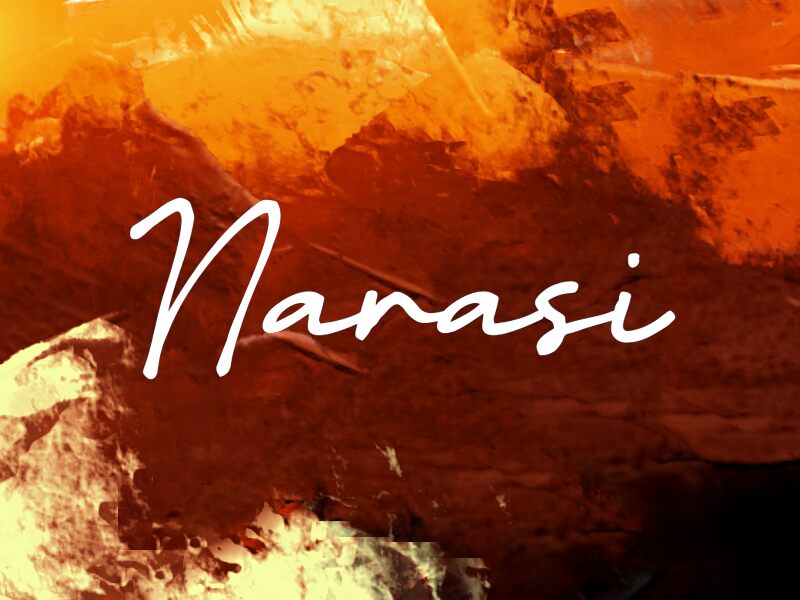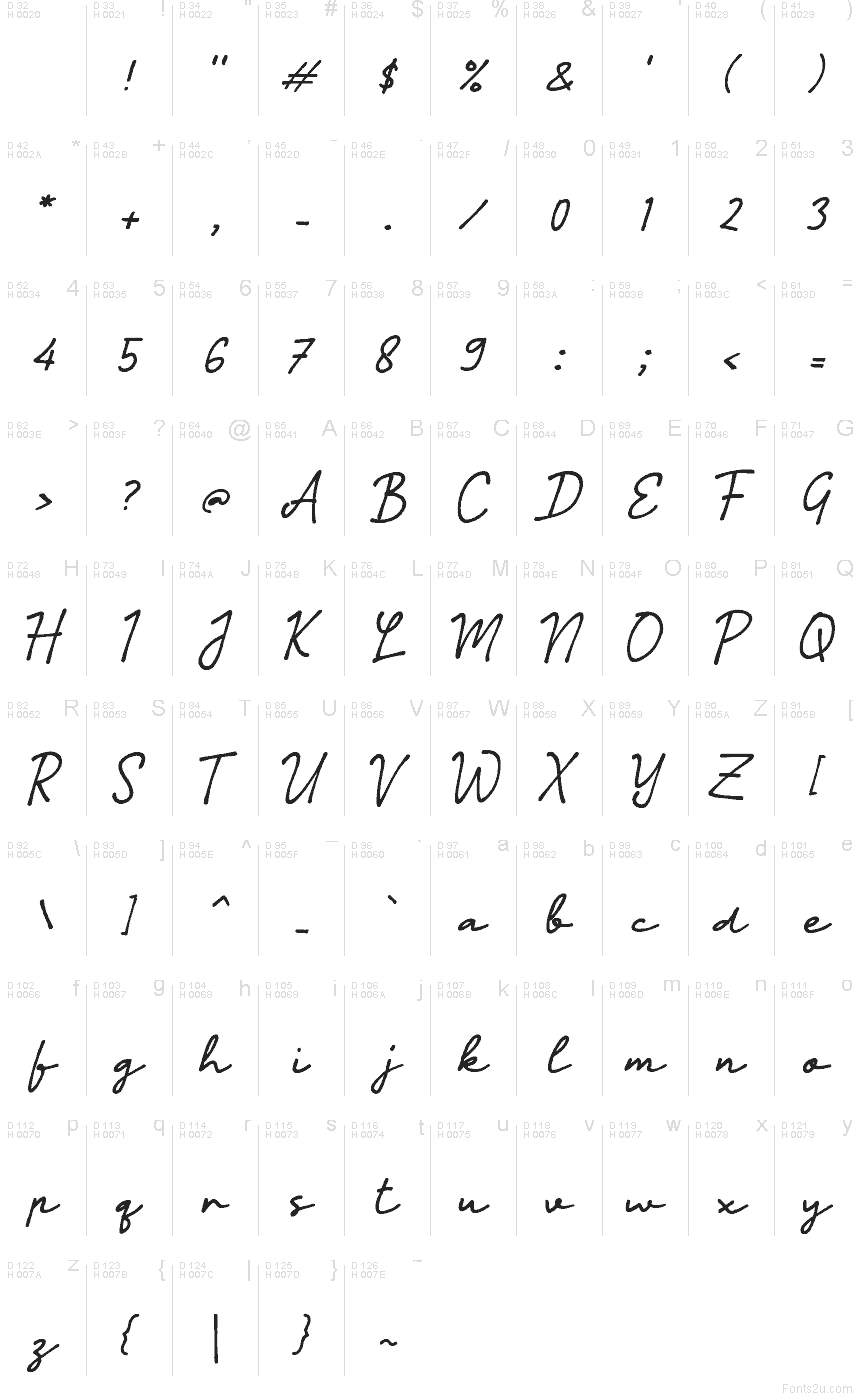
Narasi
Narasi font by wep is a free handwritten script typeface that solves the “too fancy to read” issue many scripts have. Its smooth, inky monoline strokes feel like a quick note from a friend—casual, slightly slanted, and effortlessly fluid—yet each letter stays clear at a glance. The spacing is relaxed but not sloppy, giving Narasi a friendly rhythm that works both on screen and in print.
Using Narasi, you can give logos, social media graphics, product packaging, quote posts, invitations, and digital signatures a warm, personal voice without losing legibility. This free font shines when set a bit larger for headlines, then paired with a clean geometric sans for supporting text.